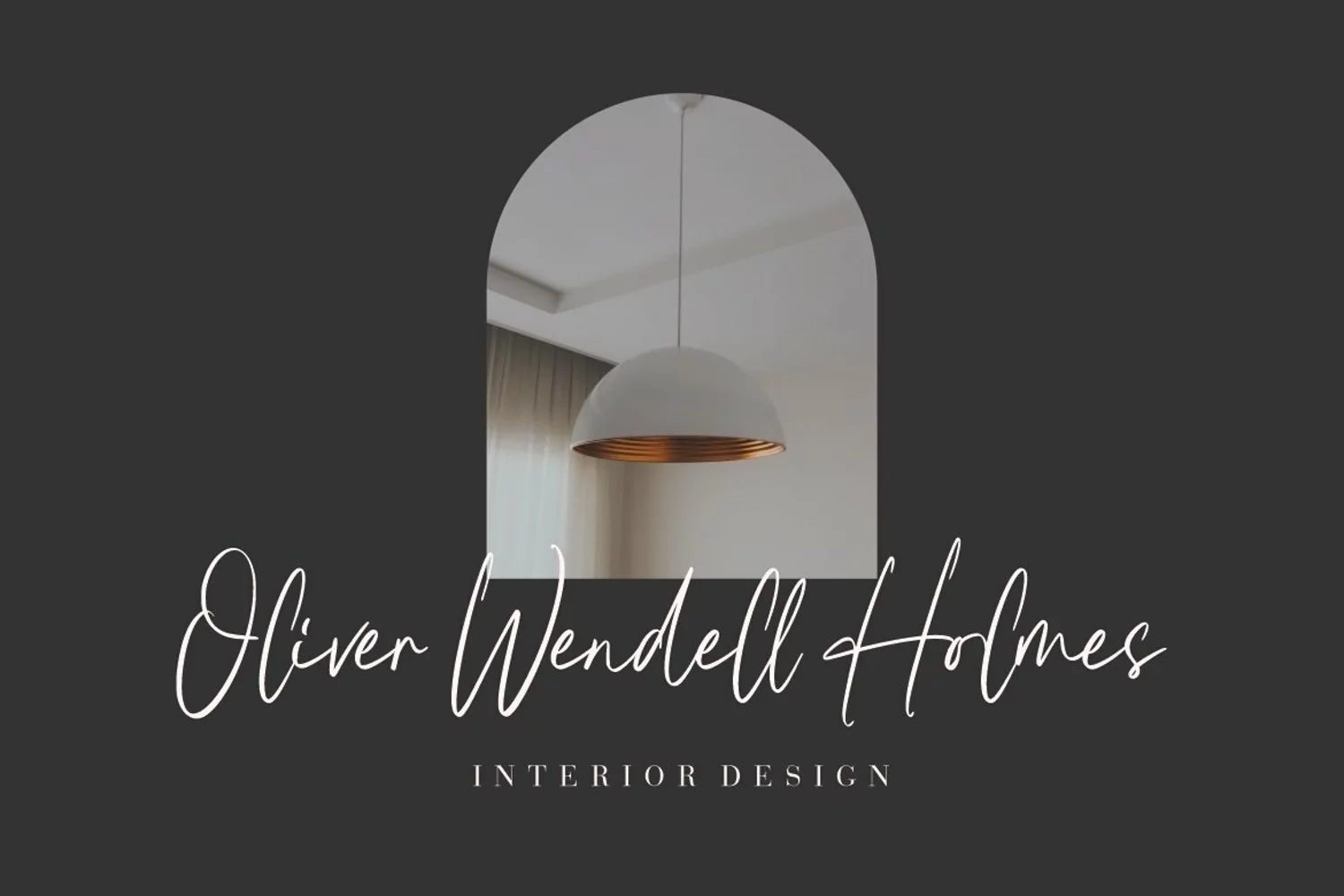
Halima Sofira is a stylish and refined handwritten font. It looks beautiful on a variety of designs requiring a personalized style, such as wedding invitations, thank you cards, weddings, greeting cards, logos and so much more.